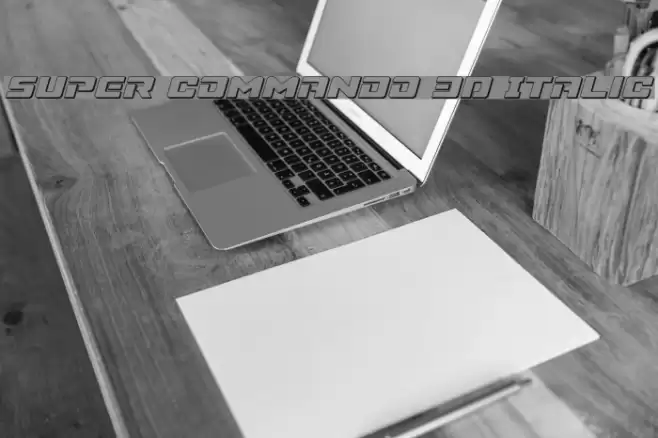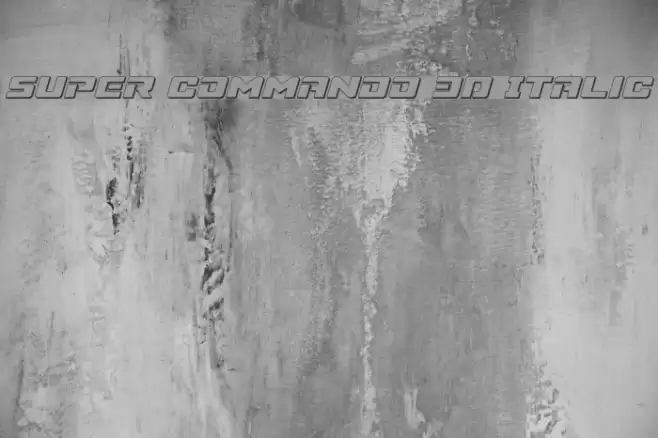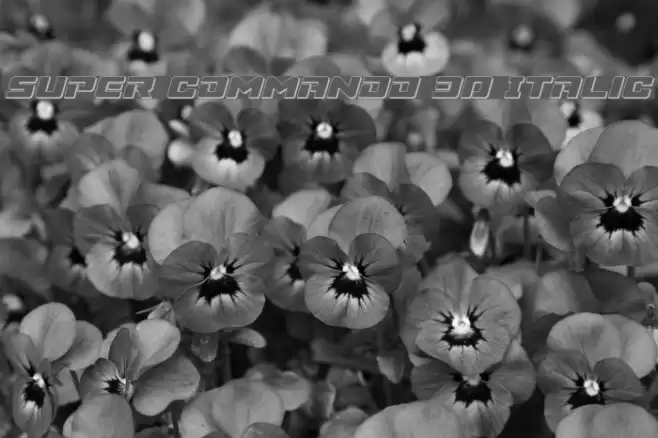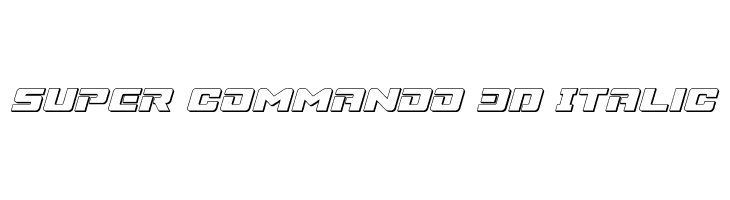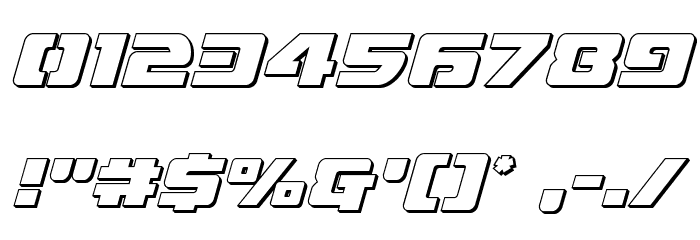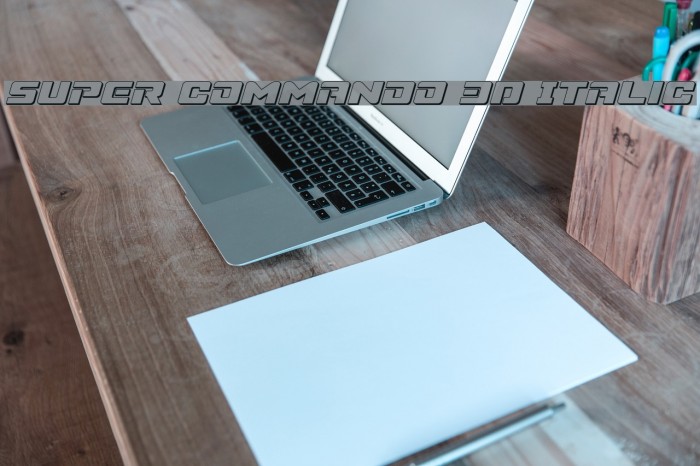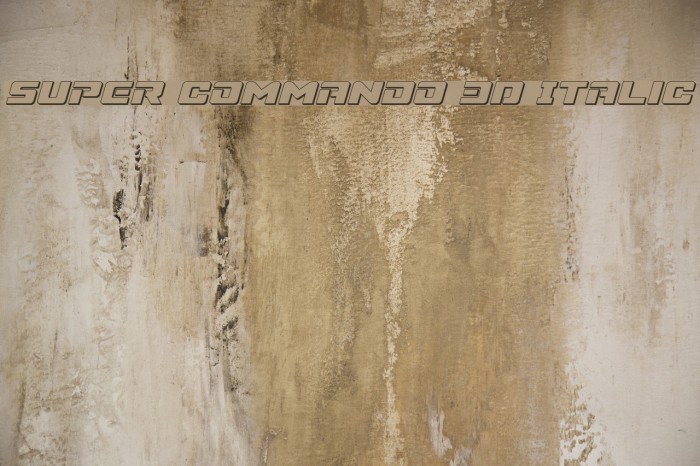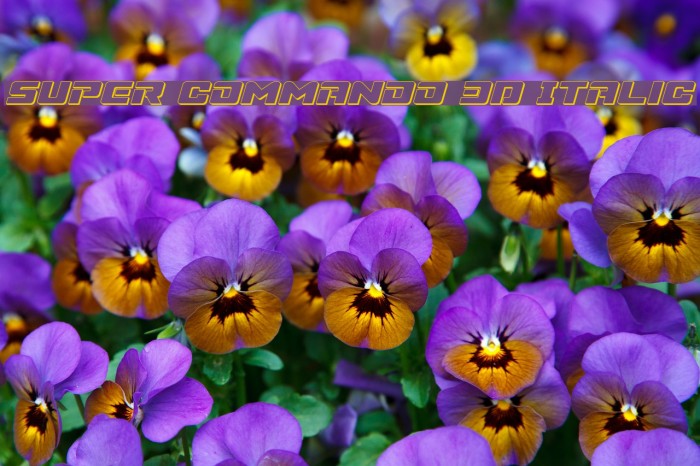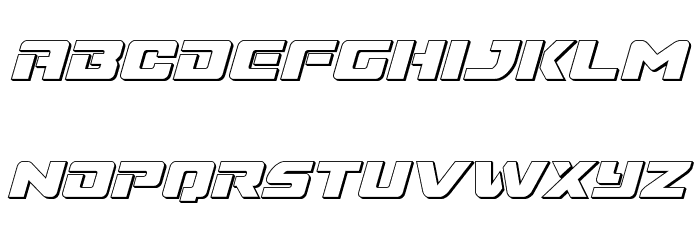
Super Commando 3D Italic Font
Super Commando 3D Italic Description
This font features a bold, futuristic design with a 3D effect that gives each character a sense of depth and dimension. The italicized style adds a dynamic and forward-moving appearance, making it ideal for projects that require a modern and energetic feel. The characters are outlined, providing a unique visual impact that stands out in various design contexts. The uppercase and lowercase letters maintain a consistent style, with angular lines and sharp edges that enhance the font's contemporary aesthetic. The numerals and special characters are designed to match the overall theme, ensuring a cohesive look across all text elements.
A bold, 3D italic font with a futuristic and dynamic style from Uncategorized fonts.
- Proposed Projects: Ideal for video game titles, sci-fi movie posters, tech branding, and sports team logos.